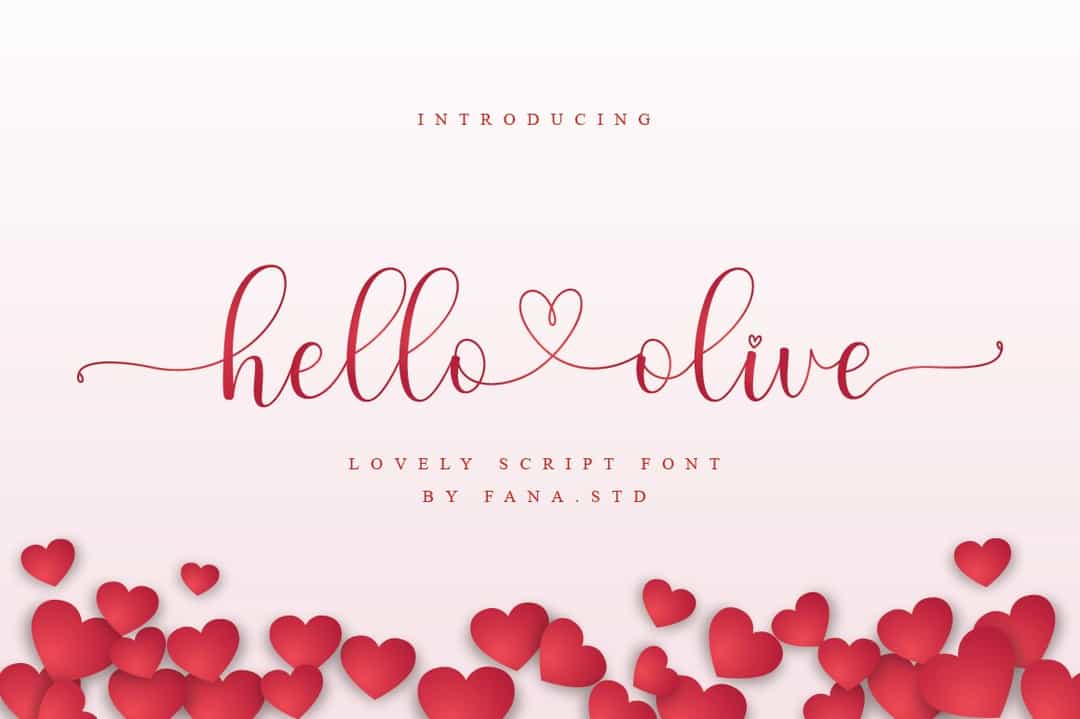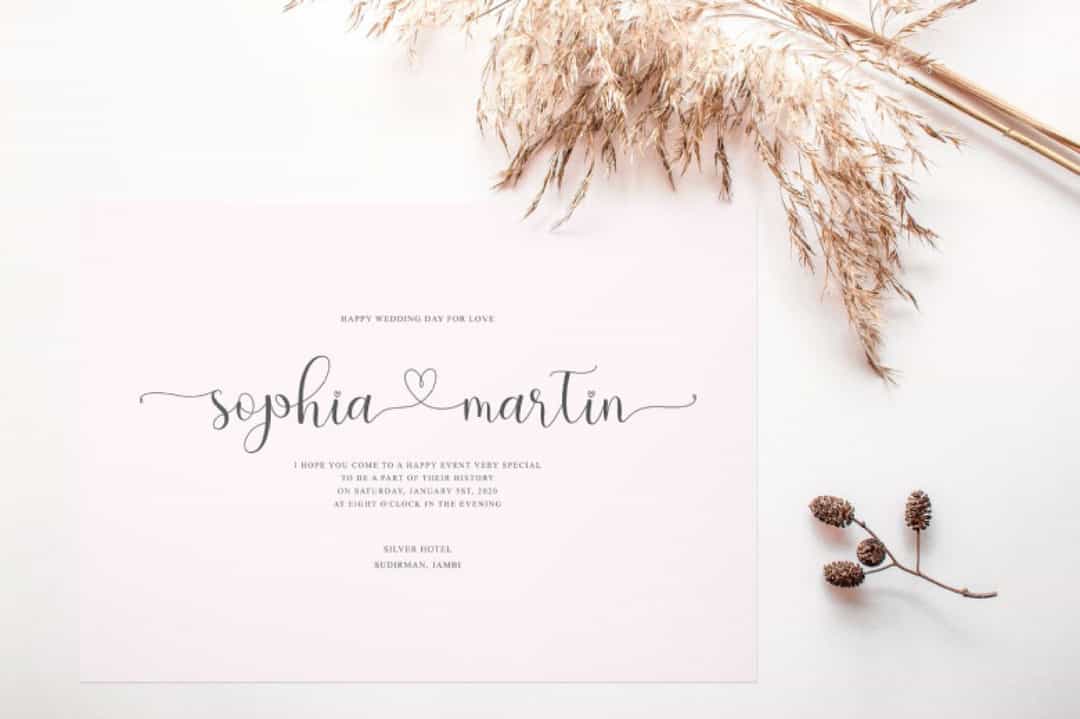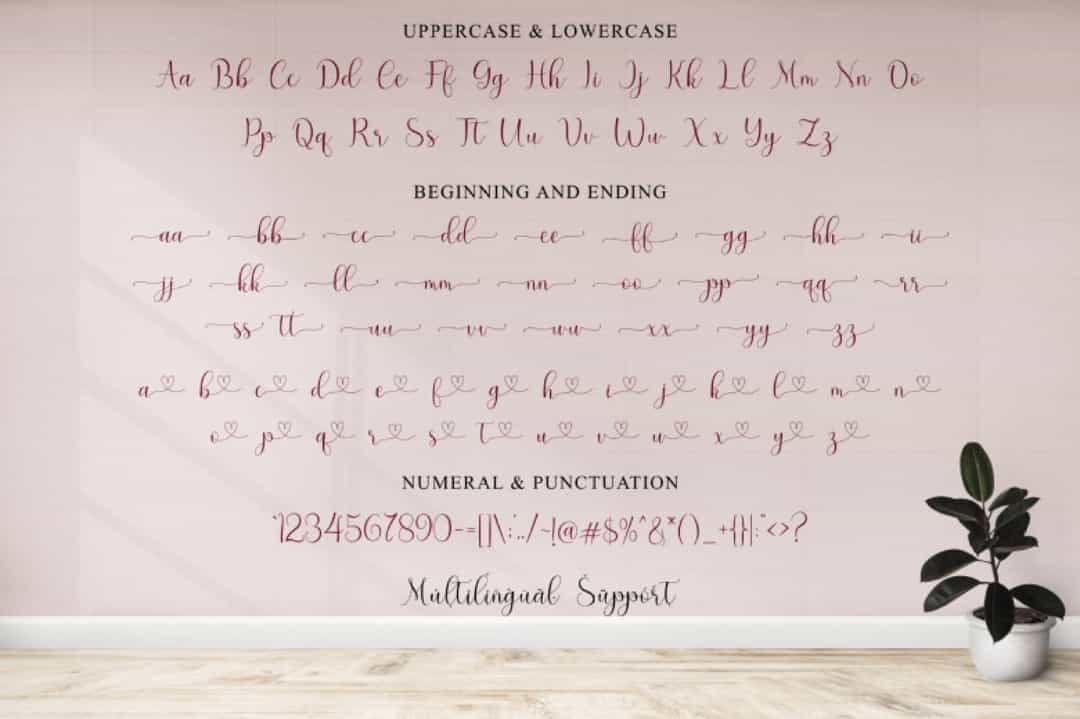
Hello Olive Font is an elegant script typeface for calligraphy that brings modernity to designs of any kind. Perfect for branding, logos invitations stationary design wedding stationary social media advertisements labels watermarks etc!